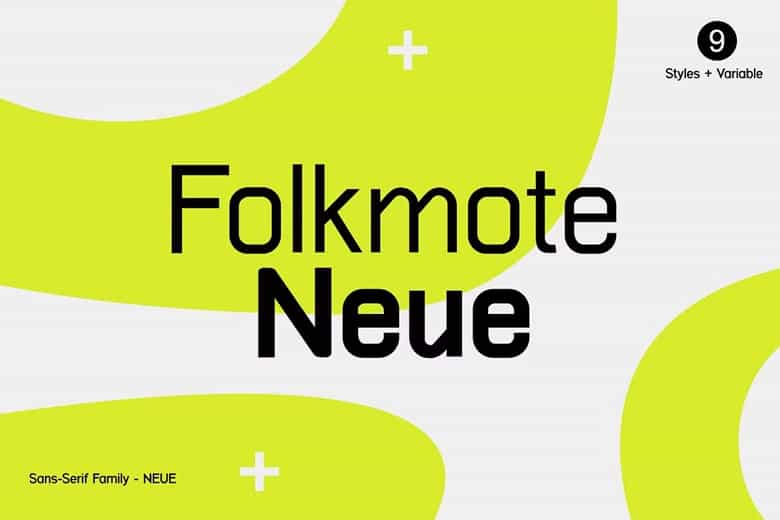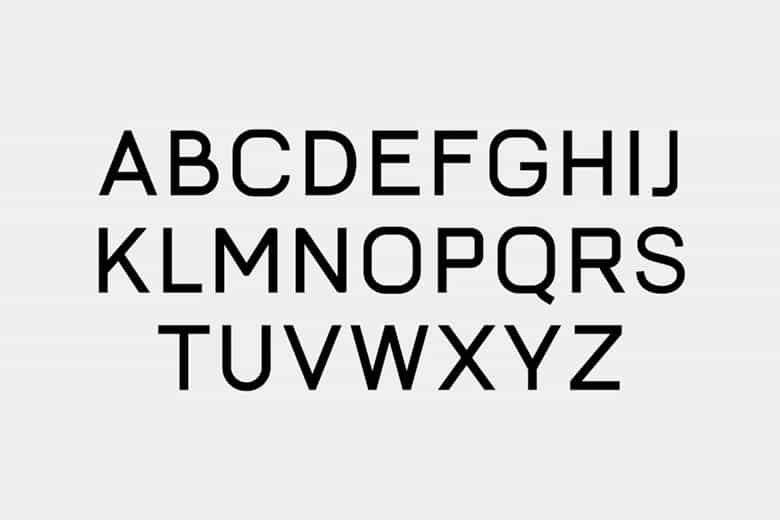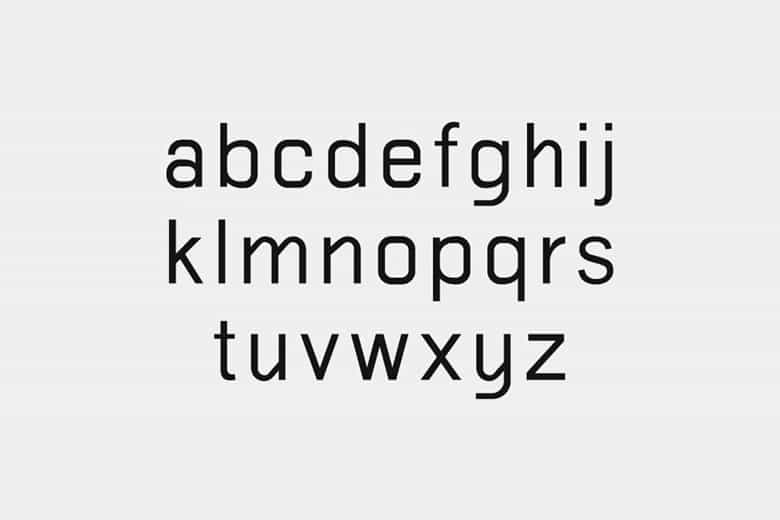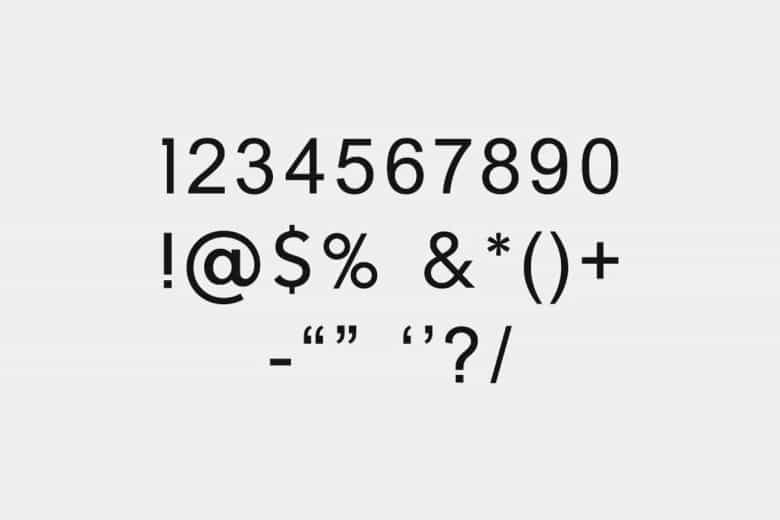
Folkmote Neue is a simple and modern sans serif font family created & designed by UICreative. This is an excellent font that can be used for a number of projects including logo designs, wedding invitation, quotation text, magazine or book cover, header for websites, branding, and many more.